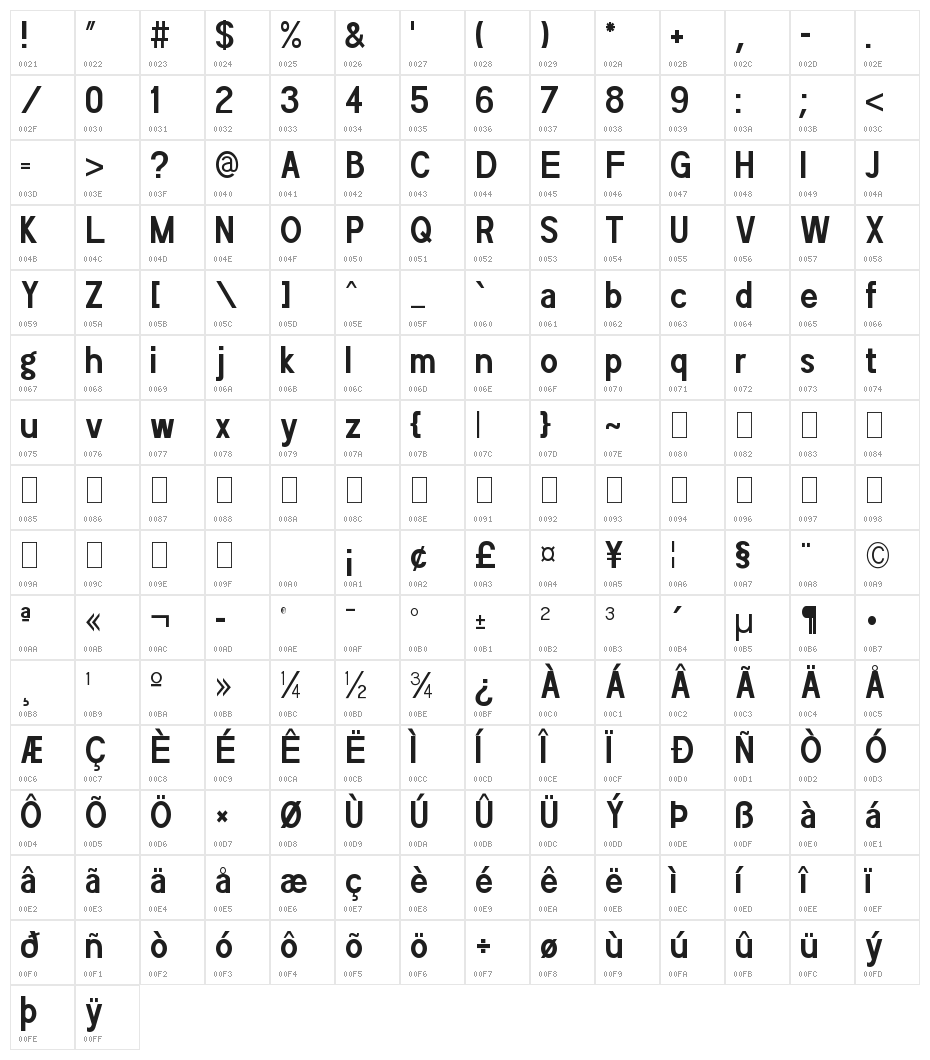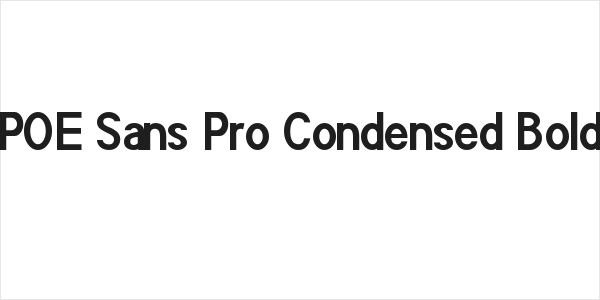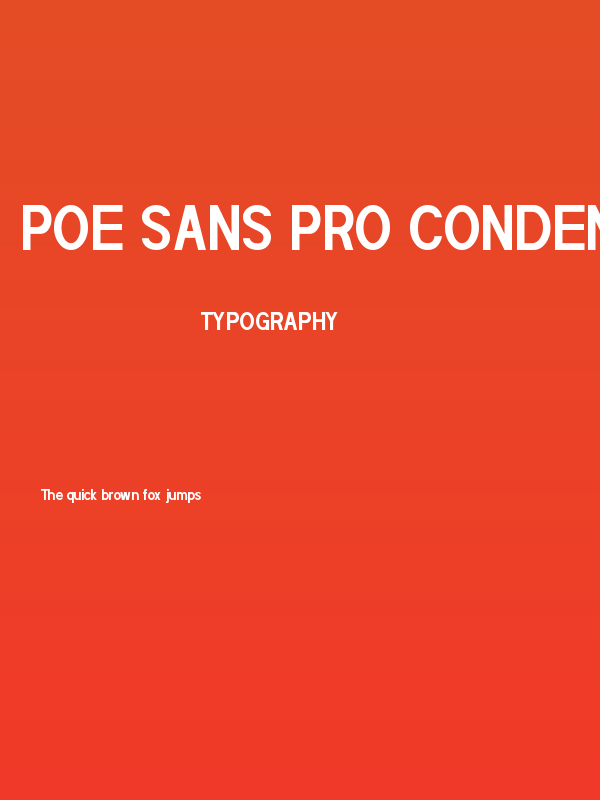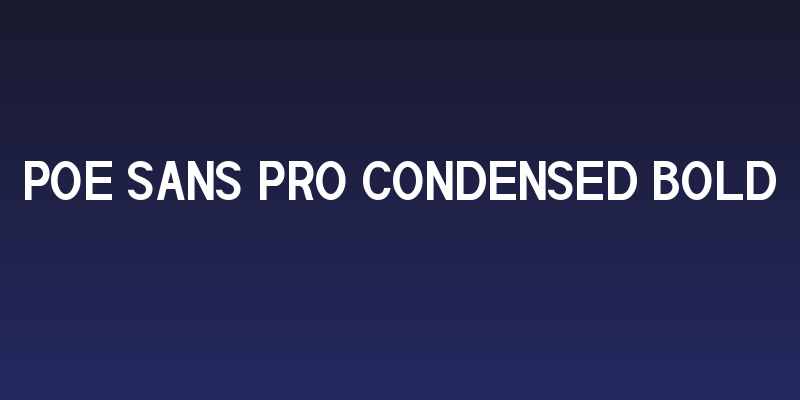
POE Sans Pro Condensed Bold Font
POE Sans Pro Condensed Bold Description
This typeface features a clean and modern sans-serif design with a condensed structure, making it ideal for space-saving applications. The bold weight enhances its visibility and impact, ensuring that it stands out in any context. The characters are uniformly designed with consistent stroke widths, contributing to a harmonious and balanced appearance. The uppercase and lowercase letters are well-proportioned, and the numerals are clear and easily distinguishable. Special characters are included, providing versatility for various uses. The overall style is contemporary, making it suitable for modern design projects.